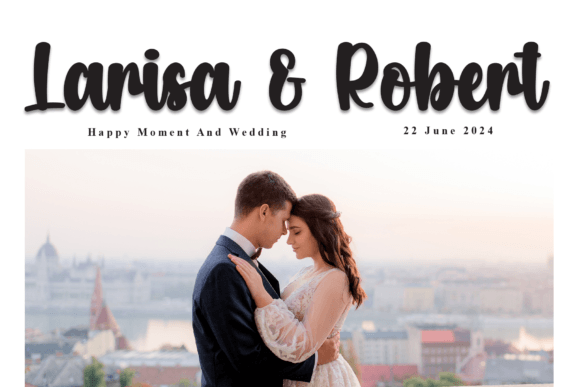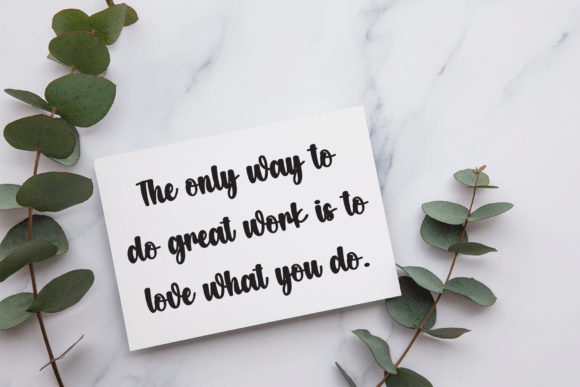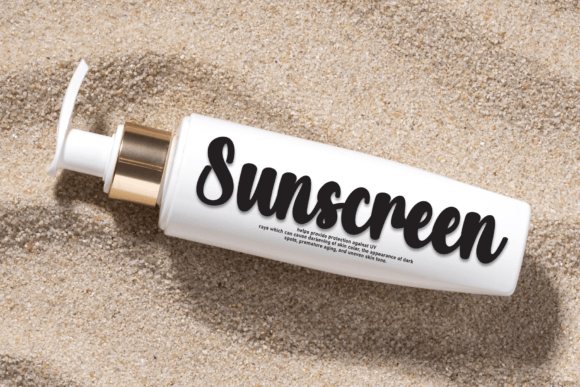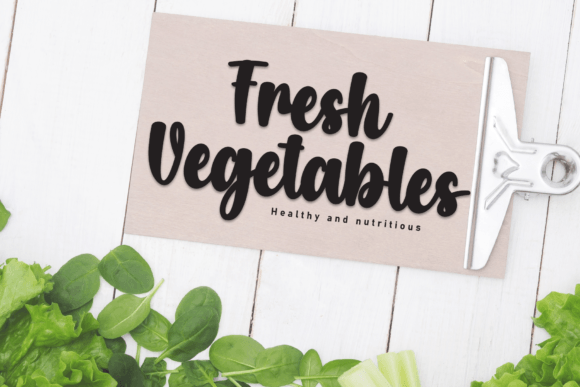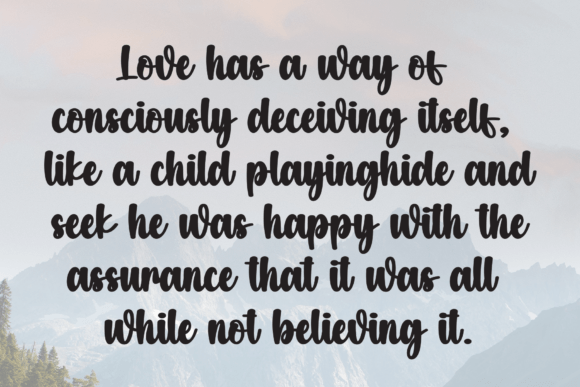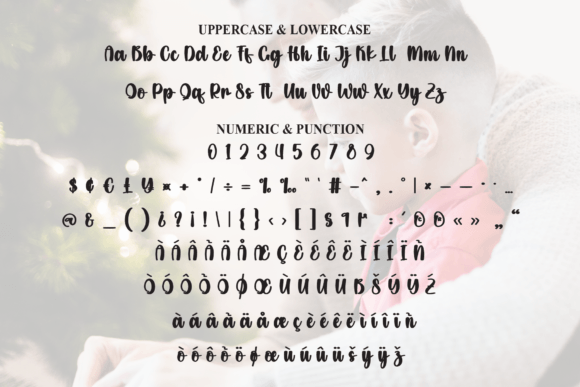
Daddy Yesterday Font: A Bold and Confident Typeface for Designers
In the world of typography, fonts play a crucial role in conveying the tone and personality of a design. For designers and crafters looking to make a statement or add a touch of confidence to their work, the “Daddy Yesterday” font is an excellent choice. This strong, hand-drawn style font is perfect for creating bold and eye-catching designs that demand attention.
The Characteristics of Daddy Yesterday Font
The “Daddy Yesterday” font is a unique and stylish typeface that boasts a distinctive character. Its hand-drawn style gives it a personal and organic feel, making it perfect for designs that require a touch of personality. The font’s bold and confident appearance makes it ideal for use in posters, headlines, and other designs where impact is key.
Key Features of Daddy Yesterday Font
- Hand-drawn style: The font’s hand-drawn style gives it a unique and personal touch, making it perfect for designers looking to add a touch of character to their work.
- Bold and confident: The font’s bold and confident appearance makes it perfect for making a statement or standing out in designs.
- Perfect for posters and headlines: The font’s strong and eye-catching appearance makes it ideal for use in posters, headlines, and other designs where impact is key.
Using Daddy Yesterday Font in Your Designs
The “Daddy Yesterday” font is a versatile typeface that can be used in a variety of design applications. Here are a few ideas for using this font in your designs:
- Posters and flyers: The font’s bold and eye-catching appearance makes it perfect for use in posters and flyers.
- Headlines and titles: The font’s strong and confident appearance makes it ideal for use in headlines and titles.
- Logos and branding: The font’s unique and stylish appearance makes it perfect for use in logos and branding.
Tips for Getting the Most Out of Daddy Yesterday Font
Here are a few tips for getting the most out of the “Daddy Yesterday” font:
- Use it sparingly: The font’s bold and confident appearance can be overwhelming if used excessively. Use it sparingly to make a greater impact.
- Pair it with other fonts: The font’s unique and stylish appearance makes it perfect for pairing with other fonts to create a visually appealing design.
- Experiment with different colors: The font’s strong and eye-catching appearance makes it perfect for use in a variety of colors.
In conclusion, the “Daddy Yesterday” font is a strong, hand-drawn style font that gives your words a bold and confident look, perfect for making a statement or standing out in designs like posters or headlines. Its unique and stylish appearance makes it perfect for designers and crafters looking to add a touch of personality to their work. With its versatility and impact, this font is sure to become a favorite among designers.